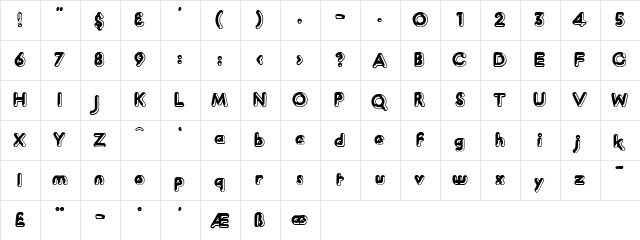
PlutoClaude Darkface Regular
Design Context for PlutoClaude Darkface Typeface
PlutoClaude Darkface is a composed and adaptable typeface that performs quietly and consistently across a wide range of design contexts.